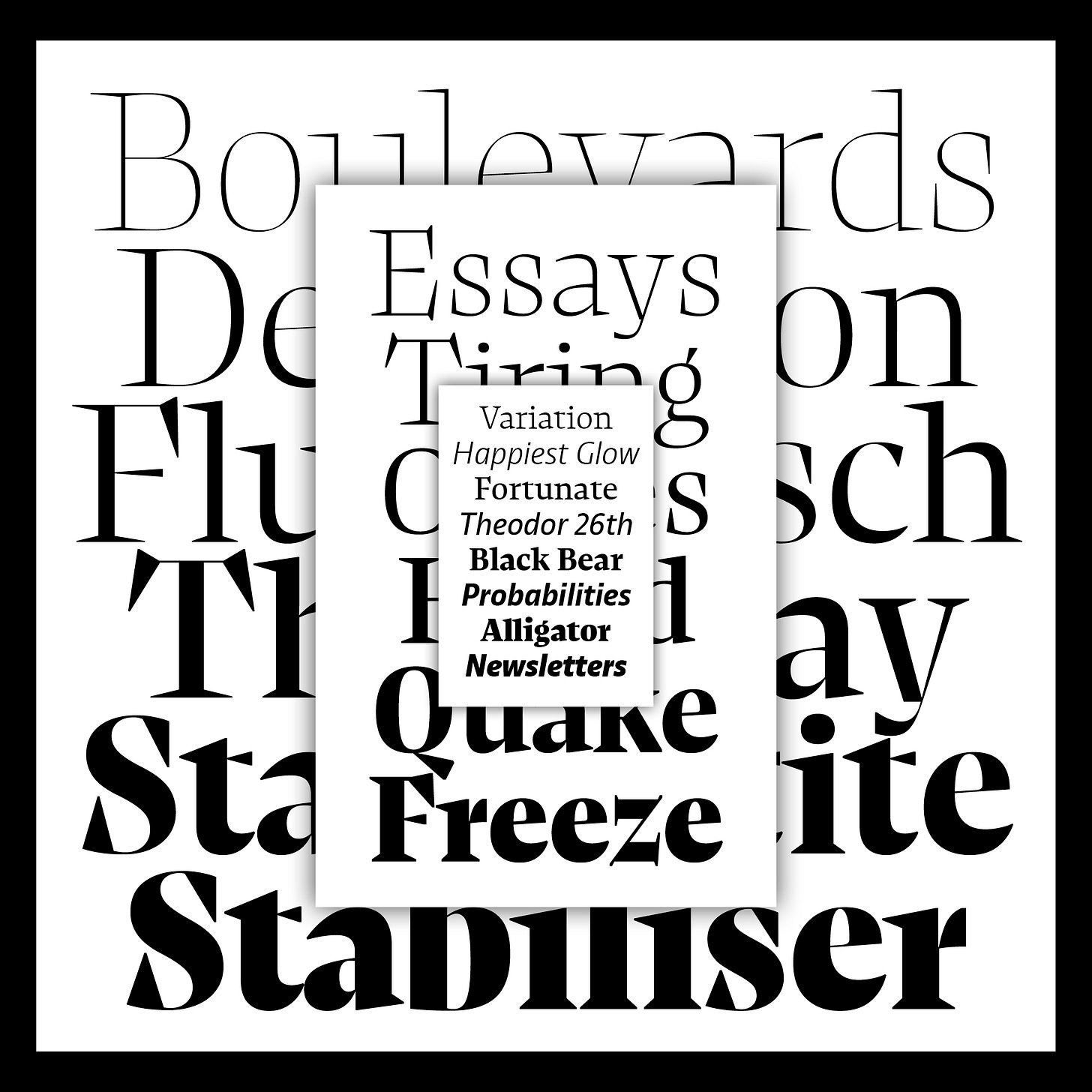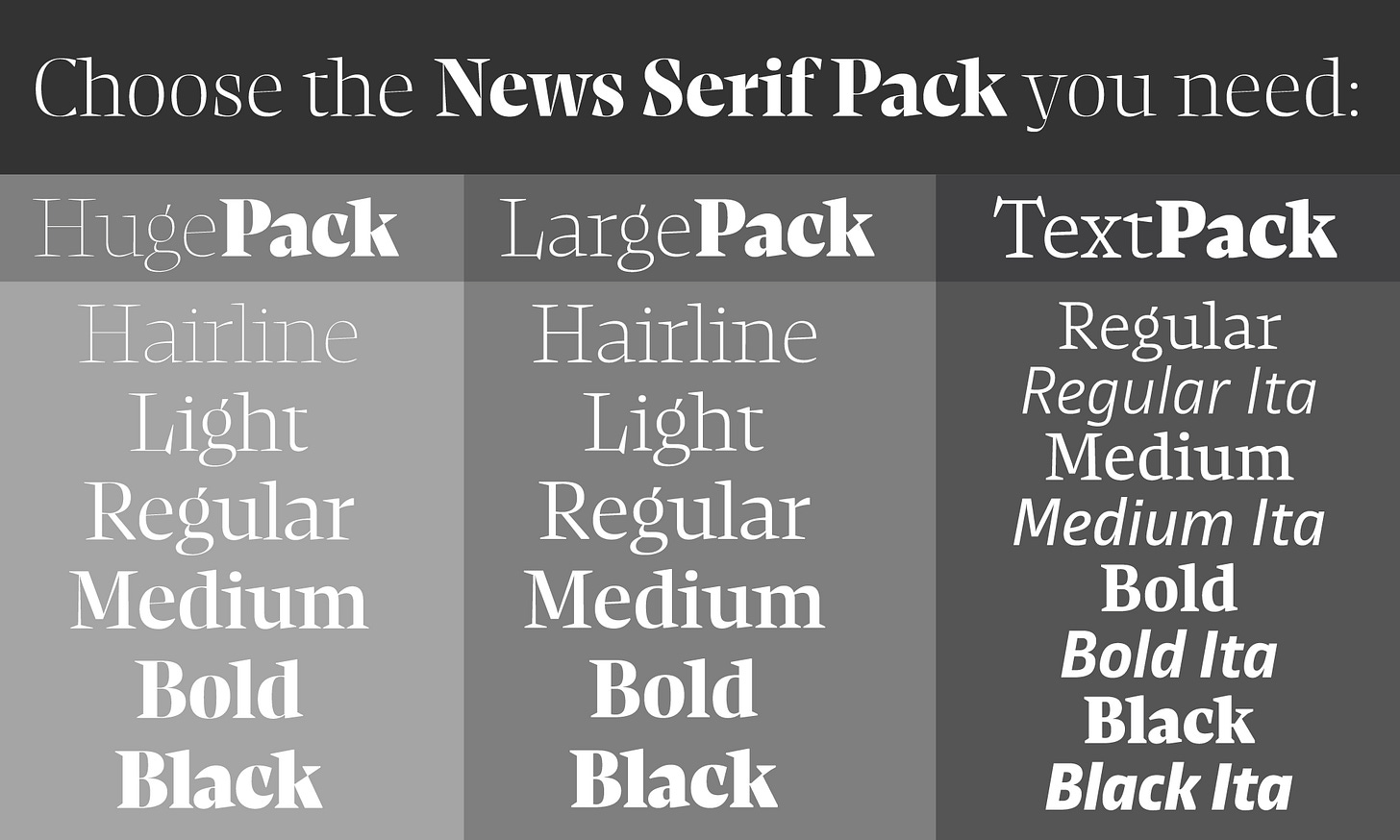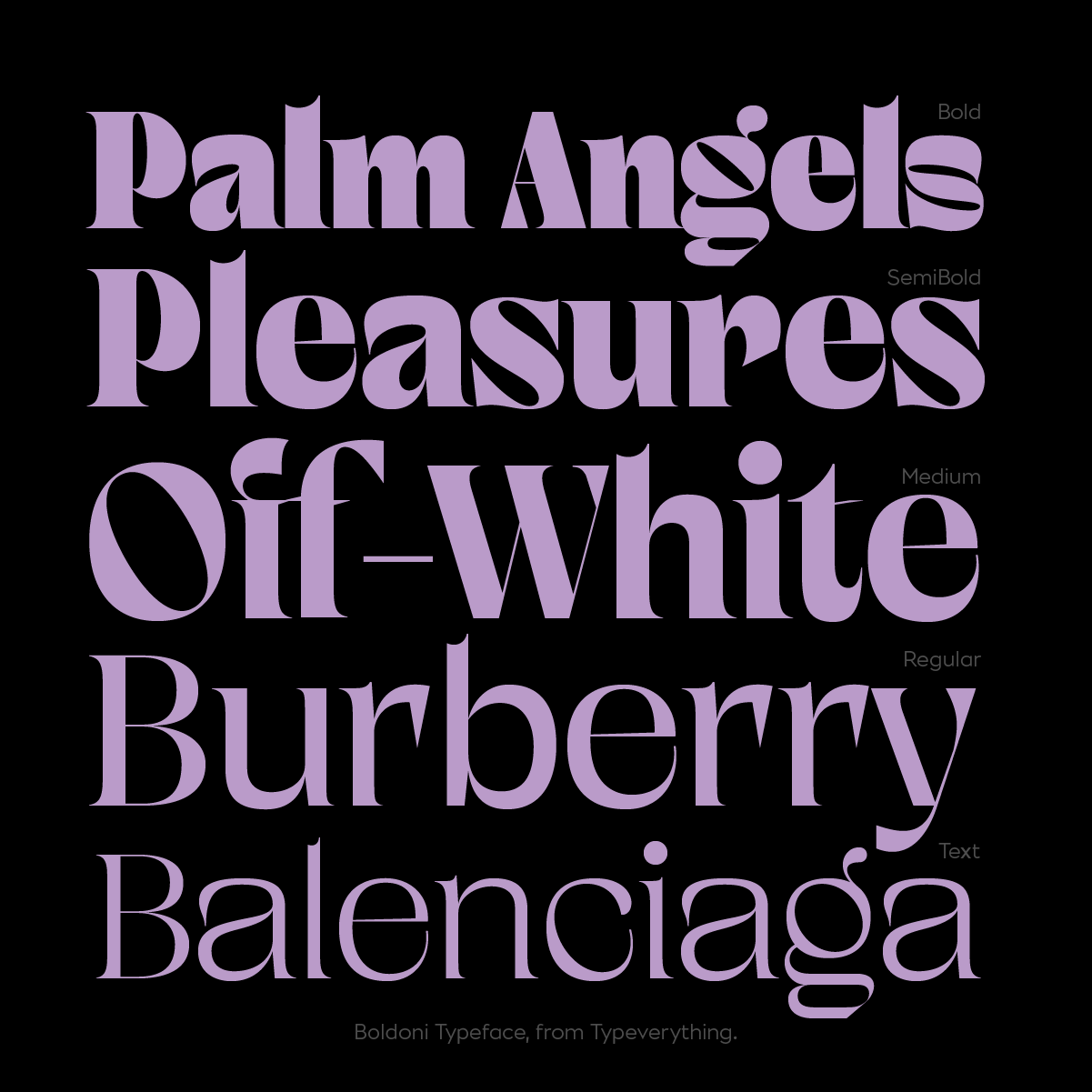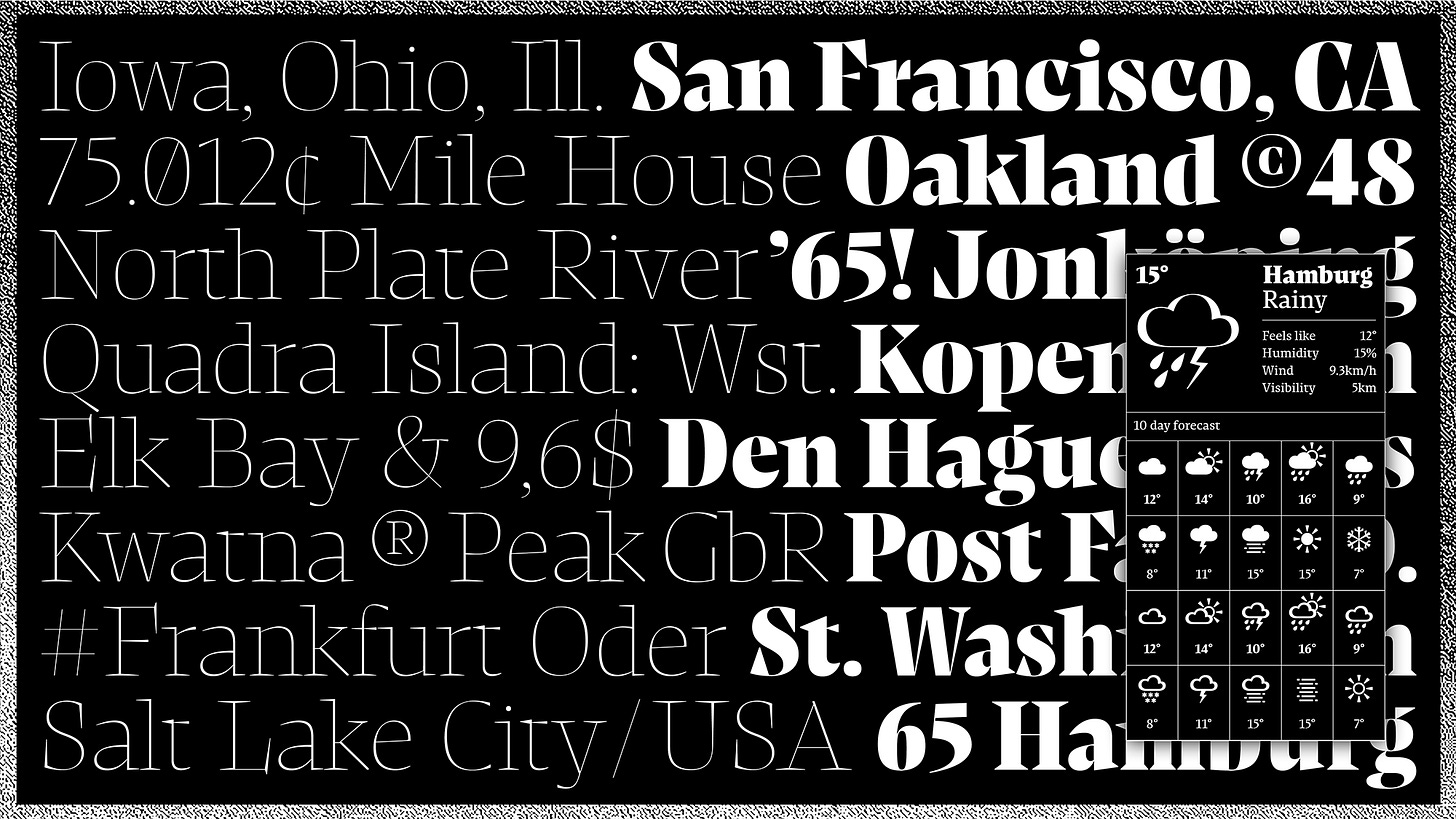
This month we introduced two new amazing fonts in our shop which you have to check out.
Boldoni is a hybrid serif with a strong classic look. It comes in 5 weights and it’s packed with alternates you can use to create unique projects.
News Serif by Henning Skibbe, was built for editorial and all typographic challenges – analogue or digital. The letter style evolves throughout the different subfamilies to become more expressive and excessive in the Large and Huge families.